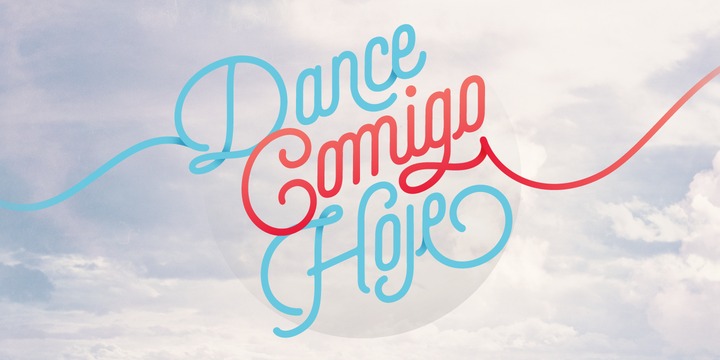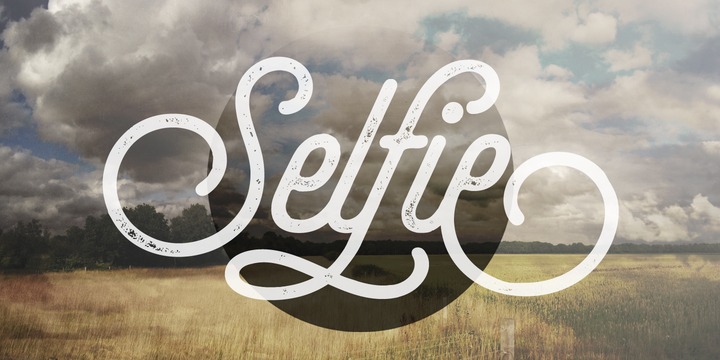
Selfie Font
Selfie Font is famous for its script typeface. This is one of the famous font in the google fonts. This is also known as the pixellab fonts. It’s miles available in 8 weights imparting loads of glyphs and italic variations as nicely.
The font you use is a critical aspect of an identical time as designing an identity. The modern weights stay real to the fashion and style of axis typeface with the acquainted clean strains, fashionable shapes, a mixture of technical straightforwardness and pure warmth. This is a summer typeface that is similar to the seaside font. Selfie Font Free Its topographies immoderate capital letters composed out via a mixture of small and excellent lowercase fonts.
You could also apply it to your internet site or emblem layout. Categorically brilliant suitable to expose and critiques of significance, this could be a terrific accumulation in your font collection. What in case your call transformed a modern-day font. Download What an elegant font!
With lovable jumps and jewelry, this font own family may be accurate at home on packing, labeling invitations, or smooth because of the front-internet web page for your resulting magazine. Take a look at out this script font, it has such a complicated, hand-drawn touch, perfect for schemes that would gain from that being worried in the biological, person hint. The cultured font derives from those earlier designs to provide a further casual look. Loose cutting-edge fonts offer you a method of experimenting so that you will offer you a totally particular format for your purchaser.